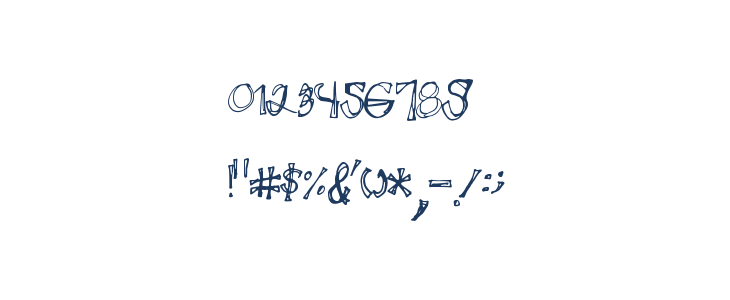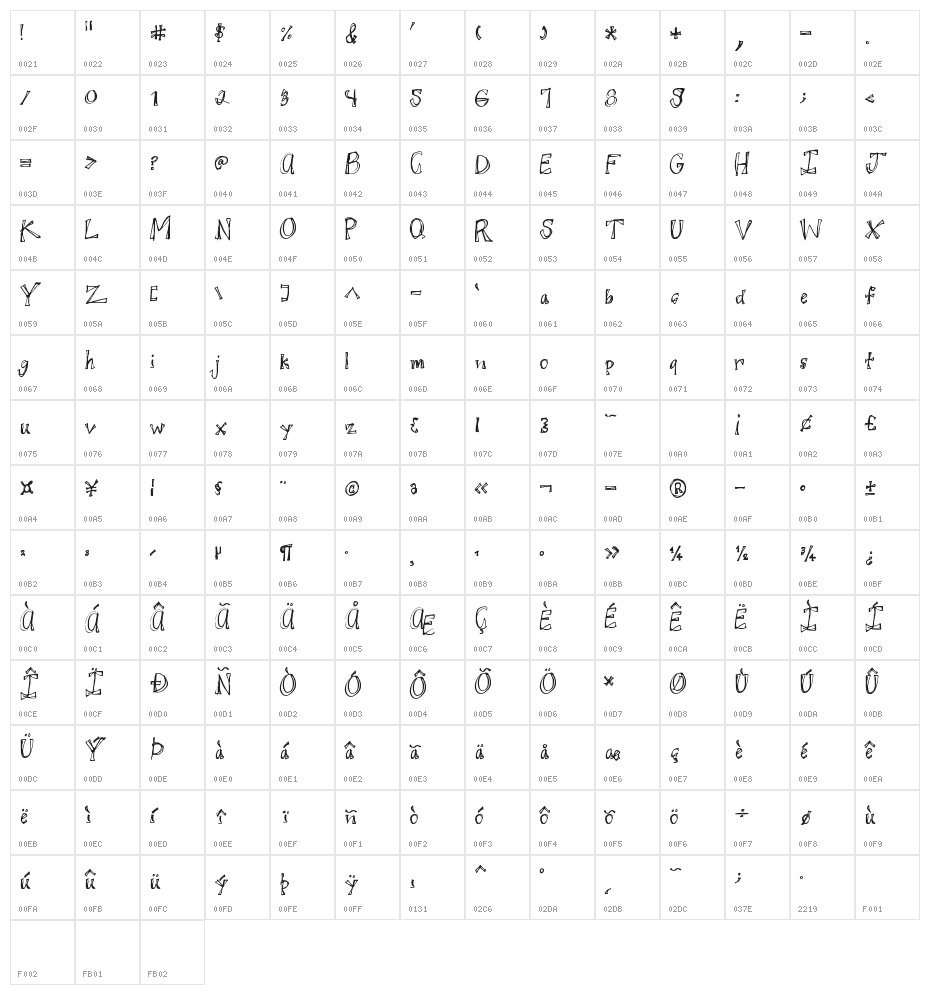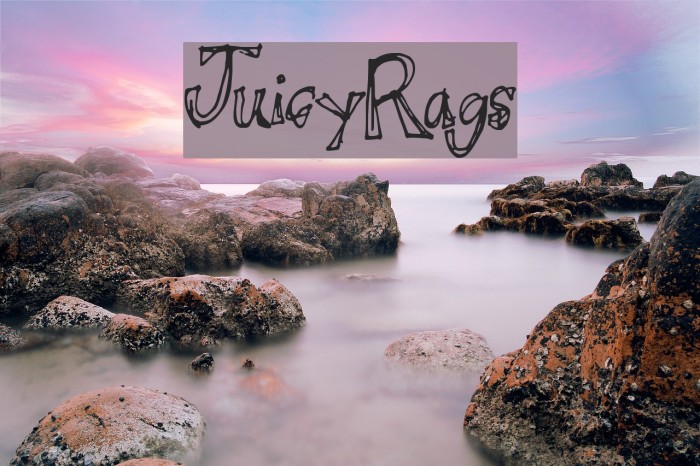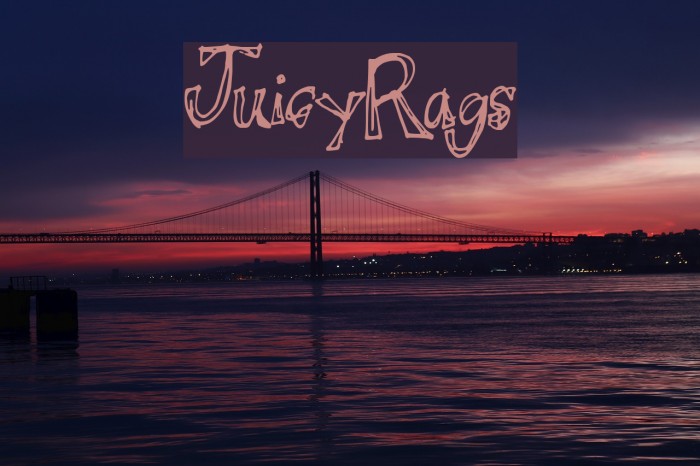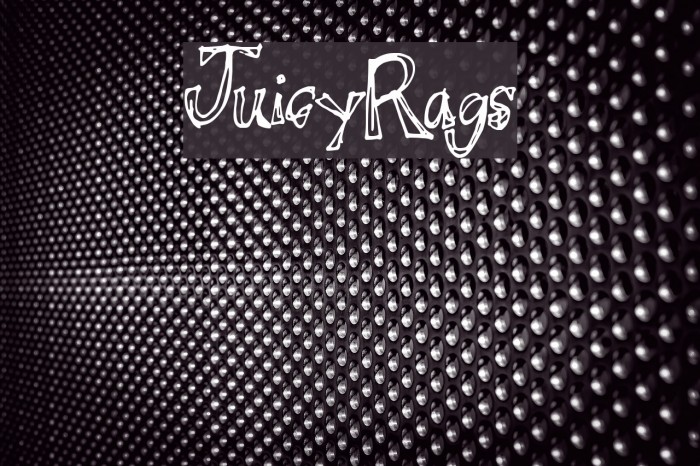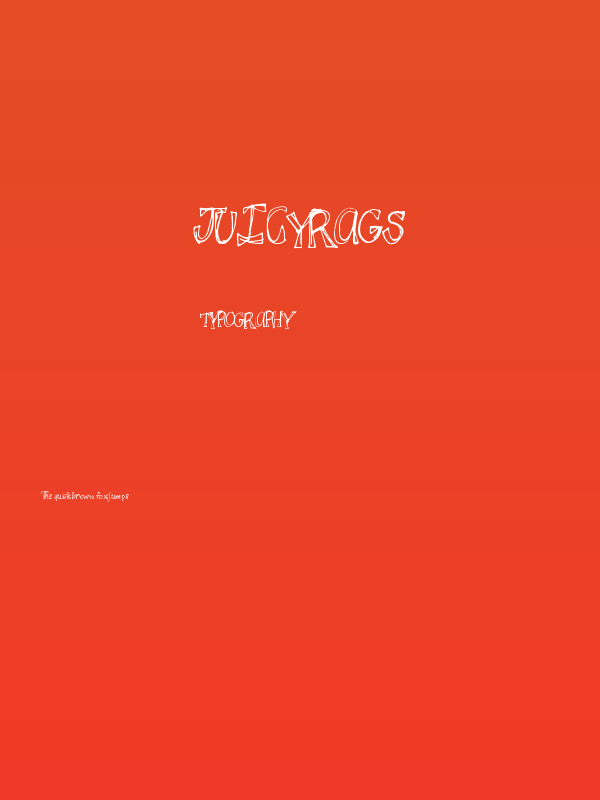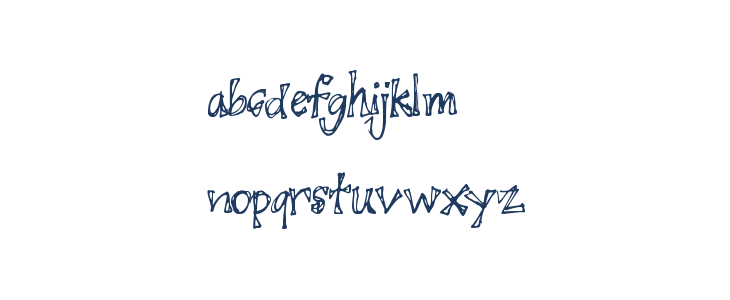
JuicyRags Font
JuicyRags Description
This font features a playful and whimsical design with a hand-drawn aesthetic. The characters are irregular and have a sketch-like quality, giving them a unique and artistic appearance. The uppercase letters are bold and dynamic, with varying line thicknesses that add to the font's charm. The lowercase letters maintain the same playful style, with some characters having exaggerated loops and curves. Numbers and special characters follow the same design principles, ensuring consistency throughout. This font is perfect for projects that require a fun and informal touch.
| Overall Style | Whimsical, Artistic |
| Proposed Projects | Ideal for children's books, creative posters, playful branding, and artistic invitations. |